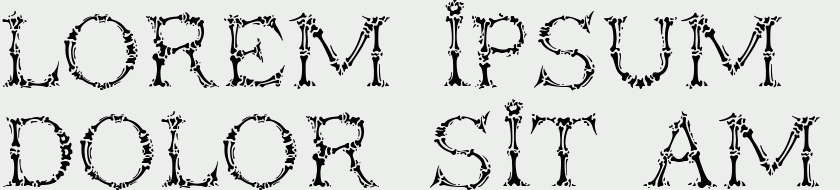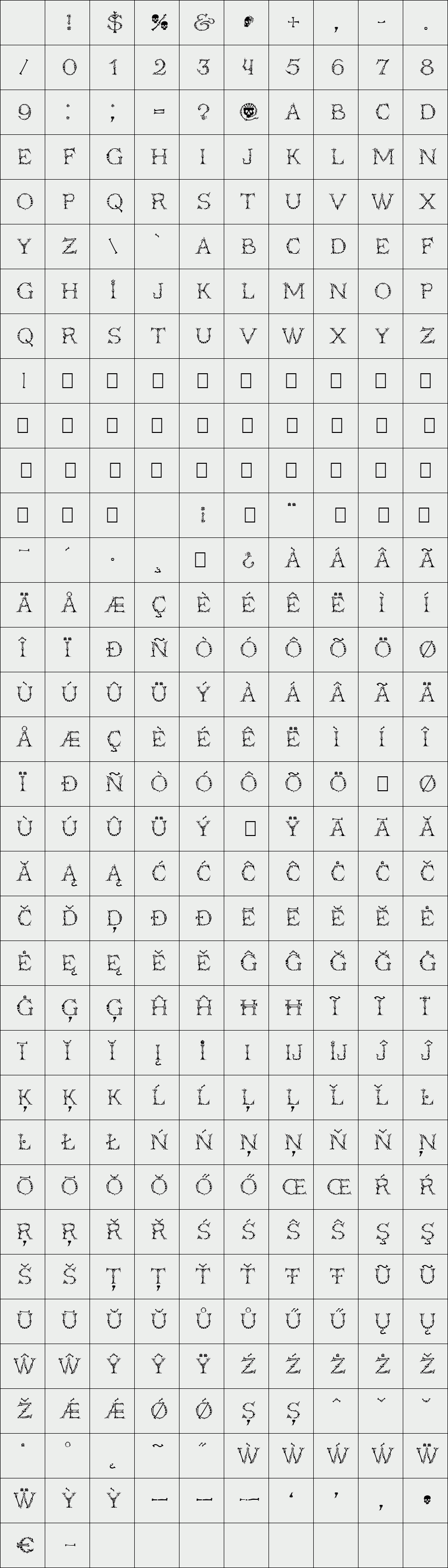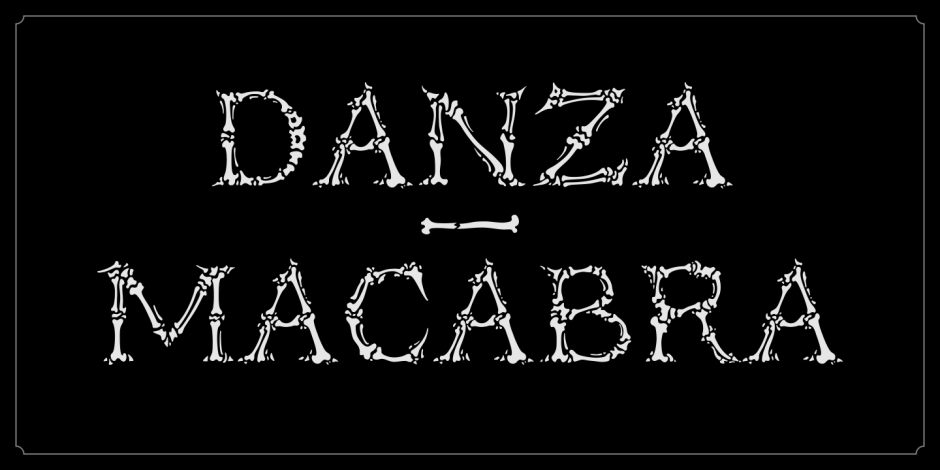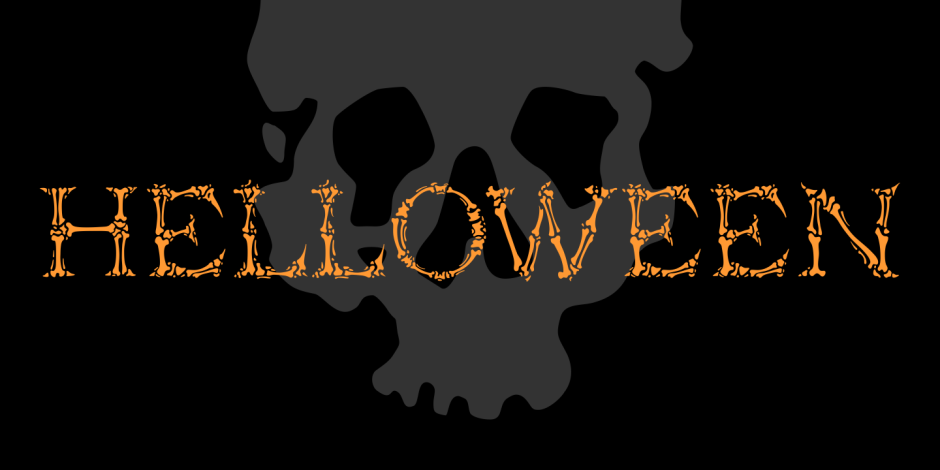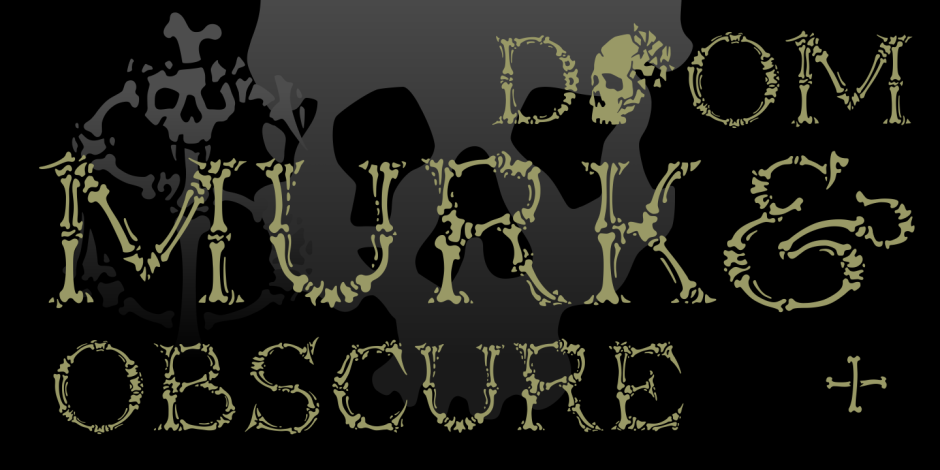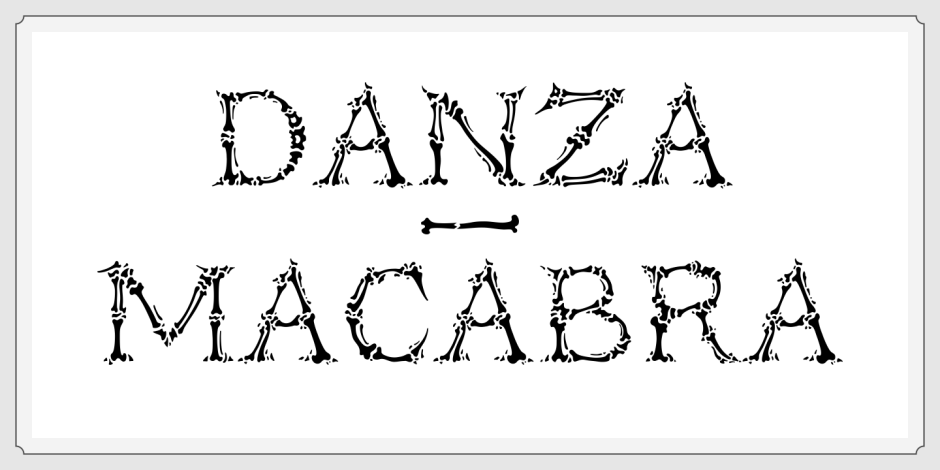
Danza Macabra
That’s a special horrific font with an intricate pattern of bones. All letters are put together of nonrecurring elements drawn individually by hand. The classical forms as we see it sound afresh with the bones attire.